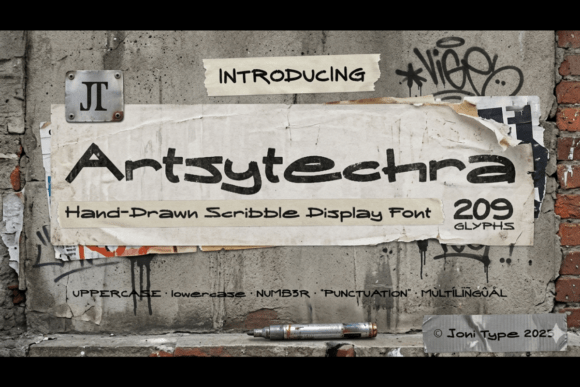
Unleash Your Creativity with Artsytechra Font: The Ultimate Guide
I’ll never forget the time I was working on a streetwear branding project, and my client asked for a font that captured the raw energy of urban street art. I scoured the internet, tried countless fonts, but nothing seemed to fit the bill. That was until I stumbled upon Artsytechra Font. This bold, hand-drawn scribble display font has been a game-changer for my designs, and I’m excited to share its awesomeness with you! 😊
What Makes Artsytechra Font So Special?
Artsytechra Font is inspired by the imperfections of raw street art, urban textures, and rebellious creative energy. Its hand-drawn, scribble style gives your designs a human, edgy, and attention-grabbing feel. With 209 glyphs, multilingual support, and a range of uppercase and lowercase letters, numbers, and punctuation, this font is perfect for projects that need a strong personality and unconventional style.
Key Features of Artsytechra Font
• Uppercase & Lowercase letters
• Numbers & Punctuation
• Multilingual Support
• 209 Glyphs
• Hand-drawn Scribble Style
• Unique Imperfect Letterforms
• ✨ Unique, hand-drawn style that adds a touch of personality to any design
• ✅ Imperfect letterforms that give your designs a human, organic feel
• 🌟 Multilingual support, making it perfect for global brands
• 🔥 Perfect for streetwear, music, and urban-themed designs
• 🤔 Limited use in formal or traditional designs, as it’s quite bold and edgy
• ⚠️ May not be suitable for very small font sizes, as some details may get lost
• Stylistic alternates: Switch between different letterforms to add more variety to your designs.
• Ligatures: Combine letters to create unique and interesting effects.
• Glyphs: Access a range of additional characters, such as symbols and icons, to add more depth to your designs.
The Story Behind Artsytechra Font
Artsytechra Font was designed with the urban creative in mind. The designer, inspired by the raw energy of street art and graffiti, set out to create a font that captured the imperfections and rebellious spirit of urban culture. The result is a font that’s equal parts bold, edgy, and playful.
Author Joni type
Q: What is the inspiration behind Artsytechra Font?
A: Artsytechra Font is inspired by raw street art, urban textures, and rebellious creative energy.
Q: Is Artsytechra Font suitable for formal designs?
A: No, Artsytechra Font is quite bold and edgy, making it more suitable for unconventional designs.